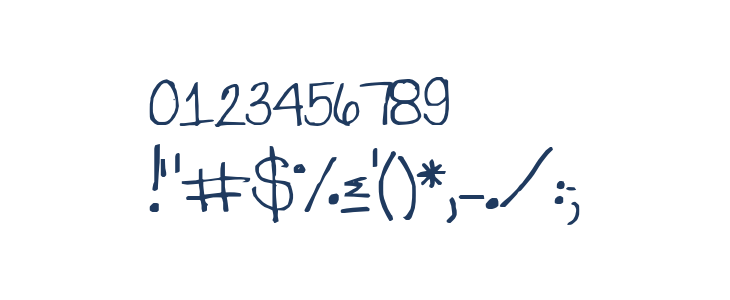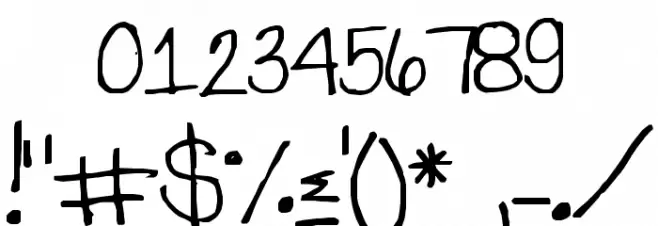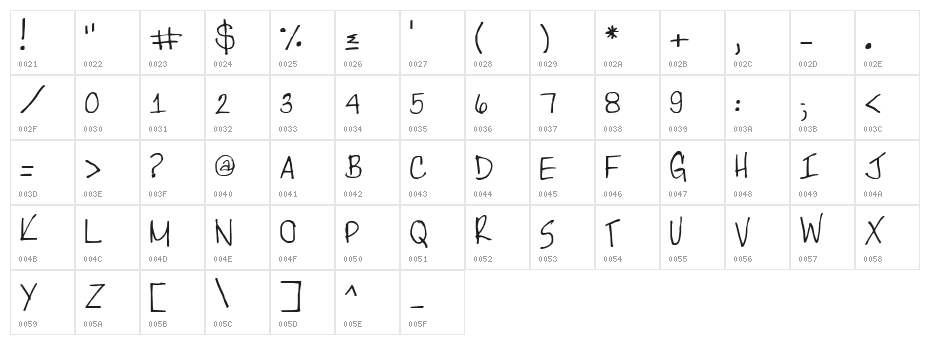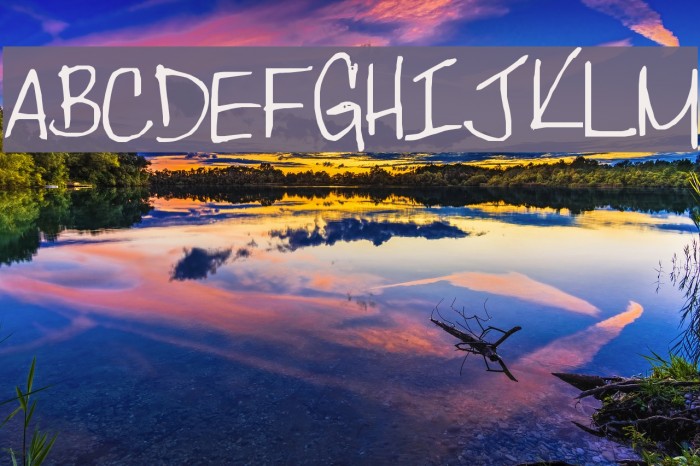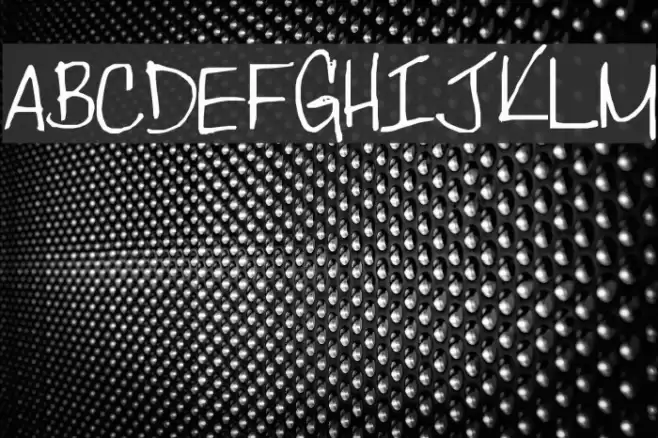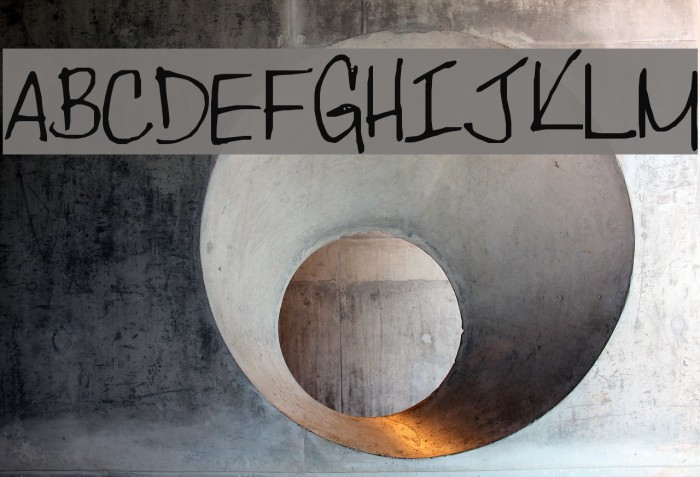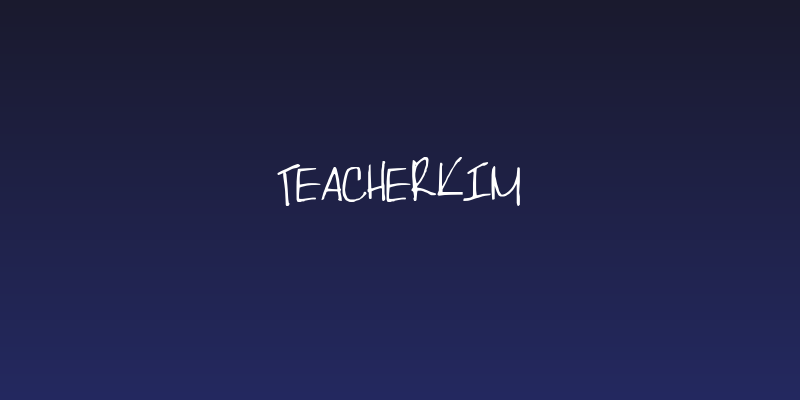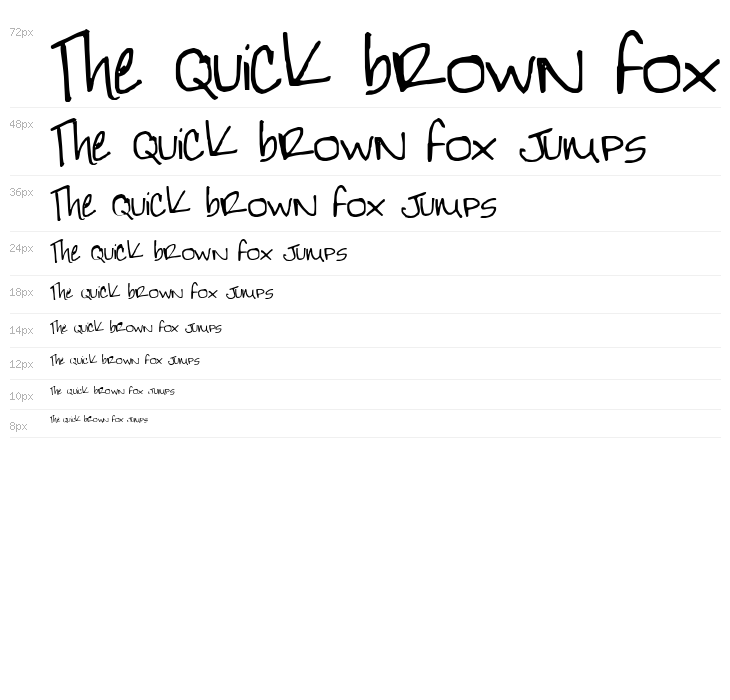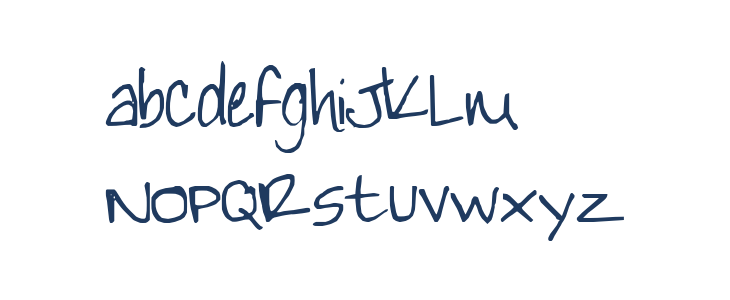
TeacherKim Font
TeacherKim Description
This font features a casual, handwritten style with a playful and informal appearance. The characters are slightly irregular, giving it a personal and approachable feel. The uppercase letters are bold and prominent, while the lowercase letters maintain a consistent flow with a slight slant, adding to the handwritten aesthetic. The numerals are clear and legible, matching the overall style of the alphabet. Special characters are creatively designed, maintaining the font's unique personality. This font is ideal for projects that require a friendly and informal touch, such as personal invitations, greeting cards, or creative branding.